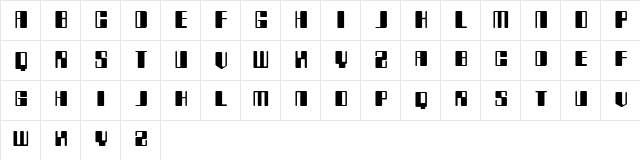
Rollerbollocks Regular
Design Context for Rollerbollocks Typeface
Rollerbollocks takes a measured approach to typography — its balanced proportions and neutral character make it a reliable workhorse for both digital and print work.